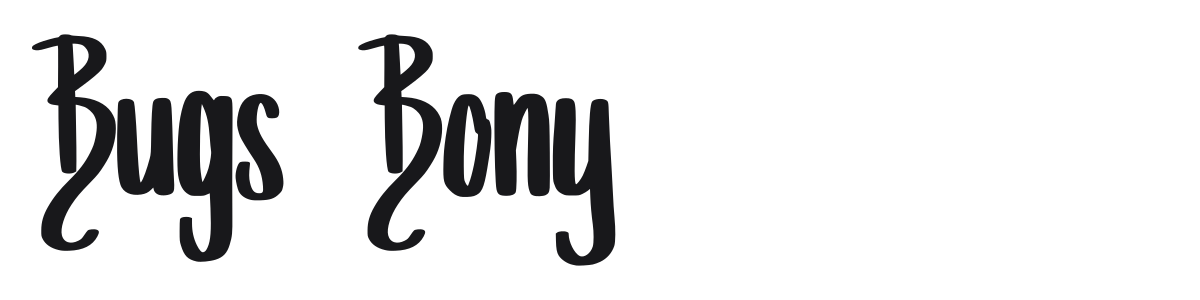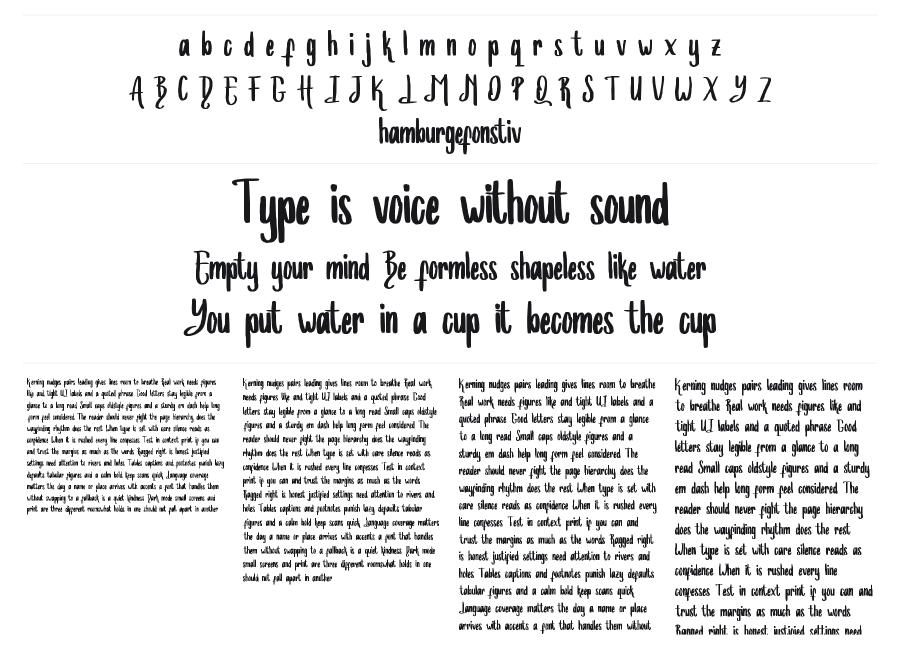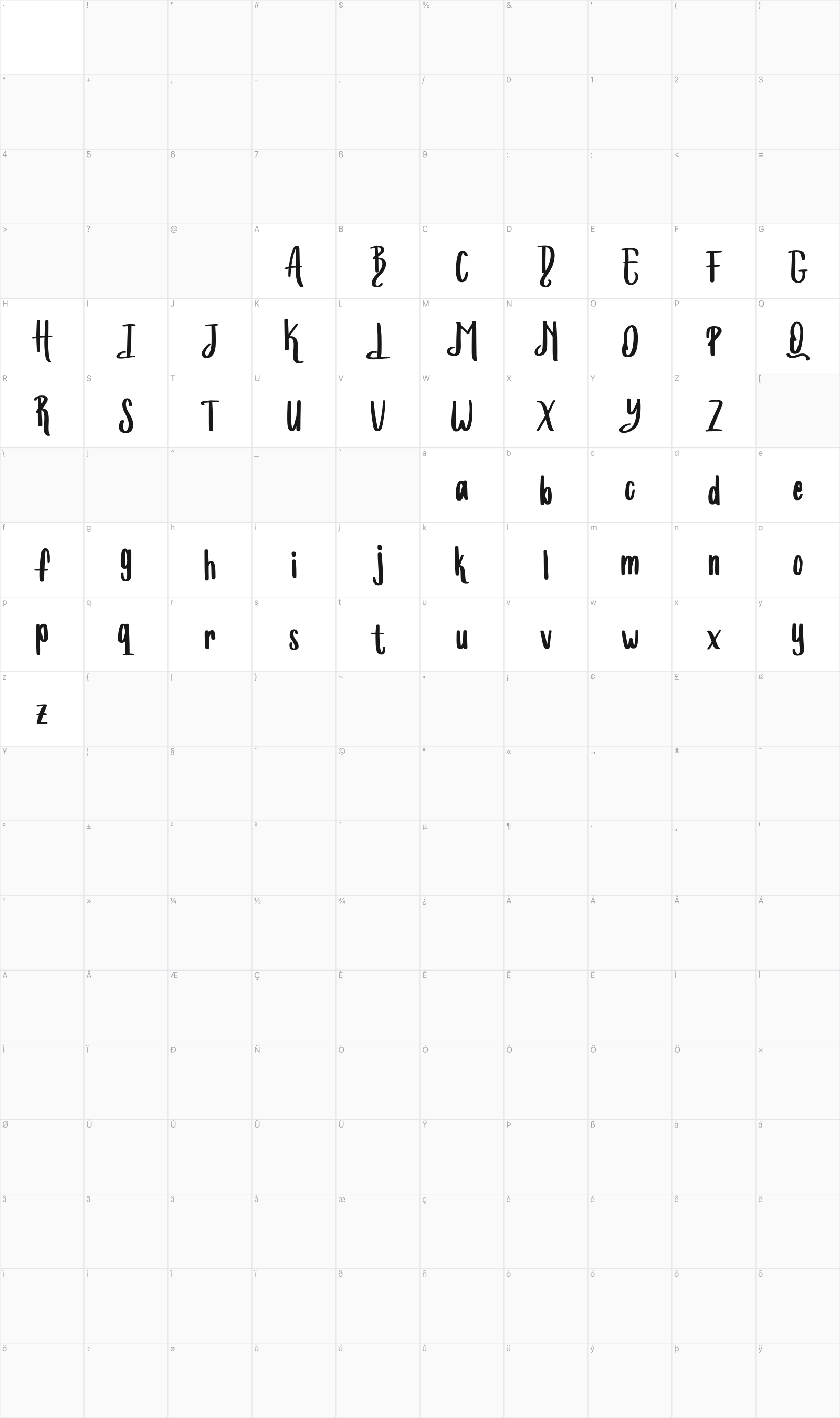
Bugs Bony
Bugs Bony is a bold, bouncy cartoon display font with a hand-drawn personality and irregular baseline that keeps things lively. The chunky, condensed characters have rounded terminals and a casual marker-like construction that reads as fun without feeling sloppy. Strong at large sizes for children's media, packaging, and playful branding.